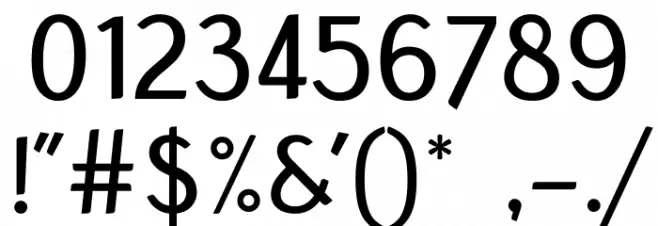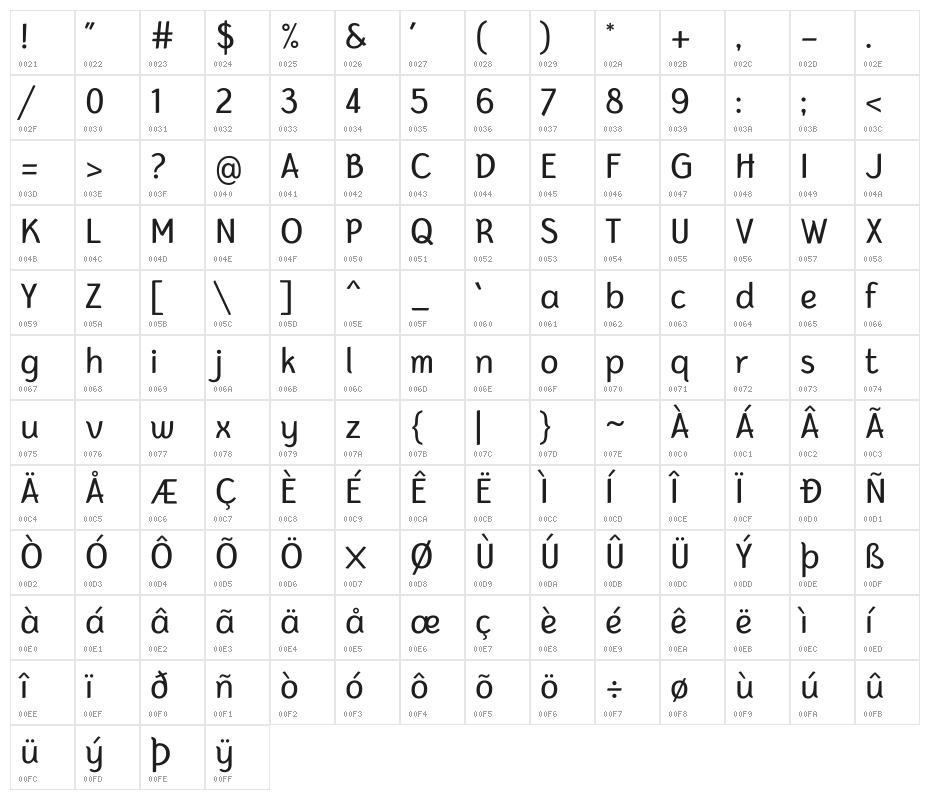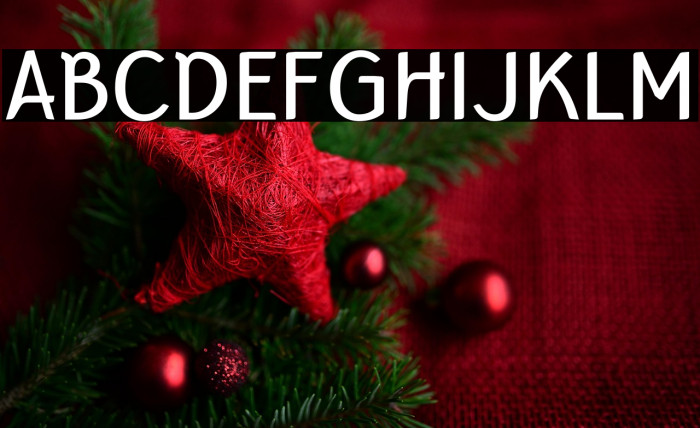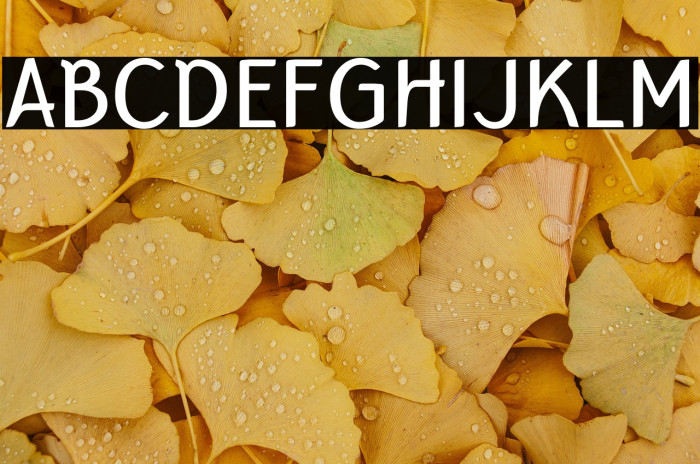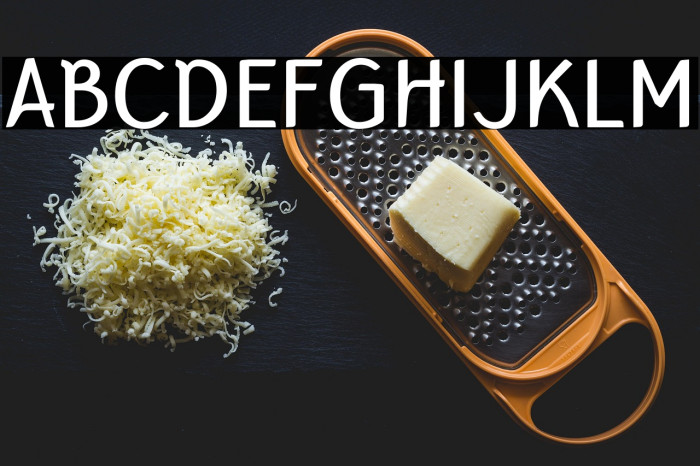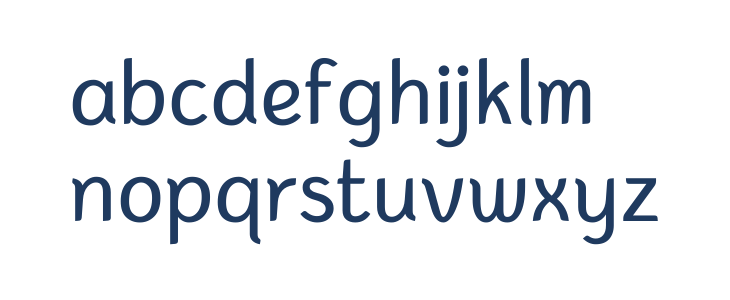
Bertina Font
Bertina Description
This font features a clean and modern sans-serif style with rounded edges, giving it a friendly and approachable appearance. The characters are evenly spaced, providing a balanced and harmonious look. The uppercase letters are bold and slightly condensed, while the lowercase letters maintain a consistent weight, offering a smooth reading experience. The numerals are clear and distinct, making them easily readable. Special characters are designed with simplicity in mind, ensuring they blend seamlessly with the rest of the typeface. Overall, this font is versatile and suitable for various design applications.
Use CaseHeadlines, Body text, Logos
Proposed ProjectsIdeal for branding, web design, advertising, and user interfaces due to its clean and modern appearance.